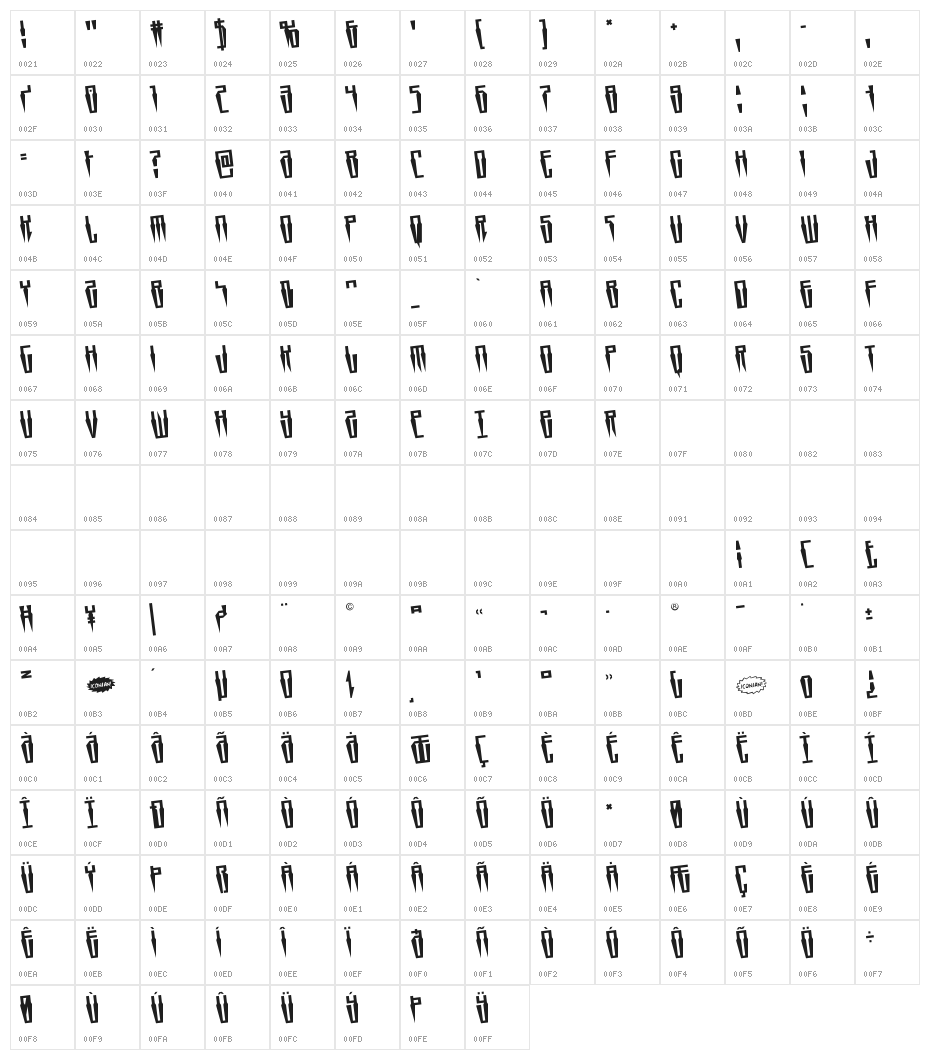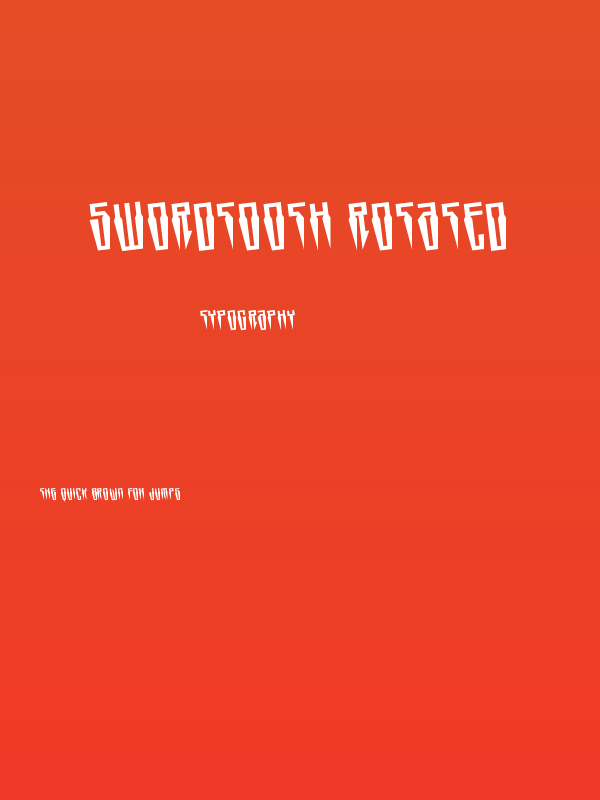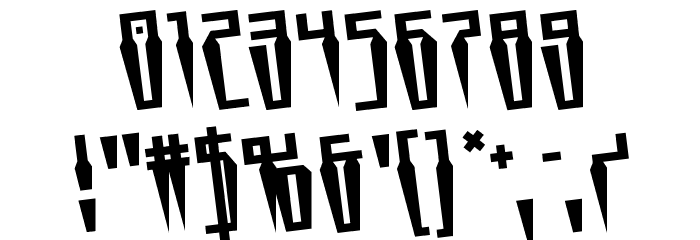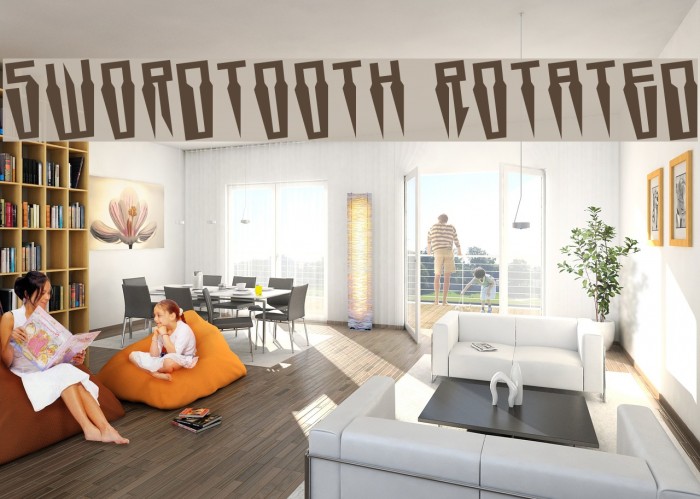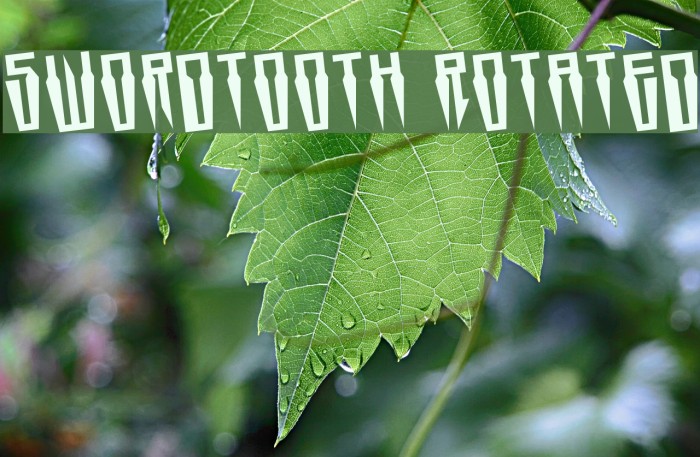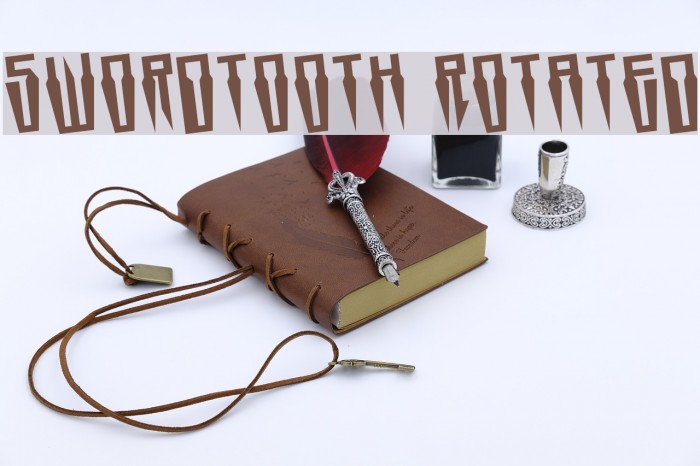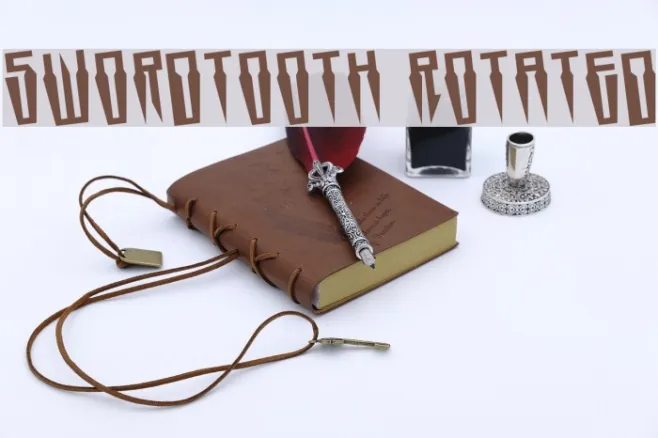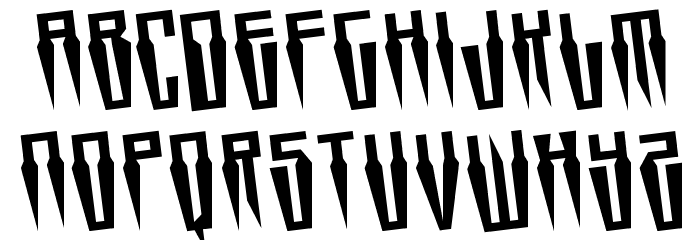
Swordtooth Rotated Font
Swordtooth Rotated Description
This font features a bold and aggressive design with sharp, angular edges that resemble the teeth of a sword. The characters are tall and narrow, with a distinct pointed bottom that gives them a fierce and dynamic appearance. The uppercase and lowercase letters maintain a consistent style, emphasizing the font's cohesive and striking look. Numbers and special characters are designed with the same sharp angles, ensuring uniformity across all elements. This font is ideal for projects that require a strong, impactful visual presence.
| Proposed Projects | Ideal for video game titles, movie posters, branding for extreme sports, or any project needing a bold, aggressive aesthetic. |